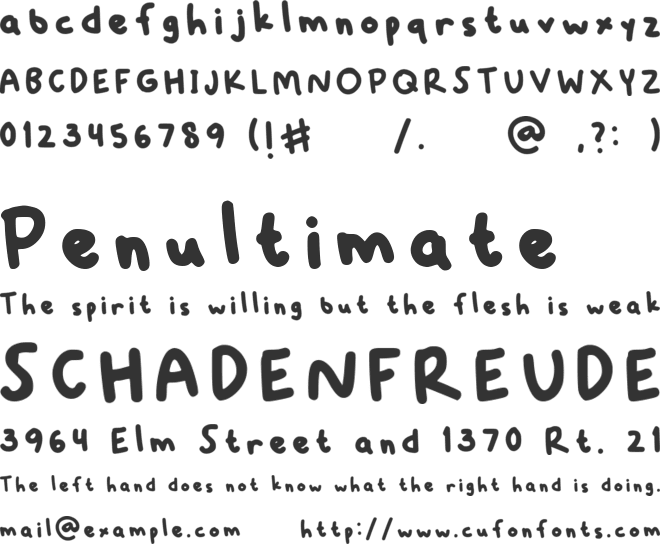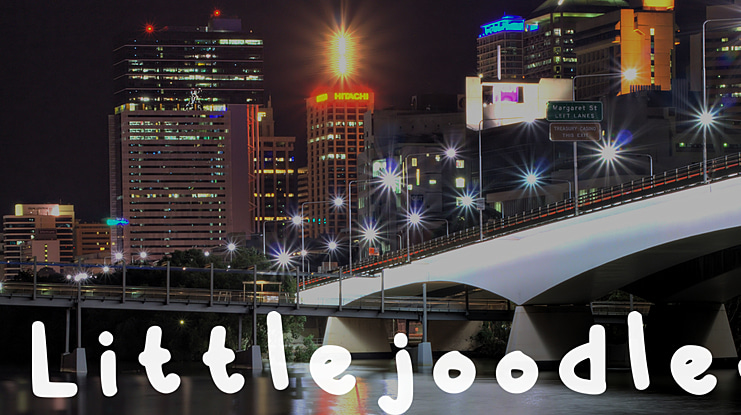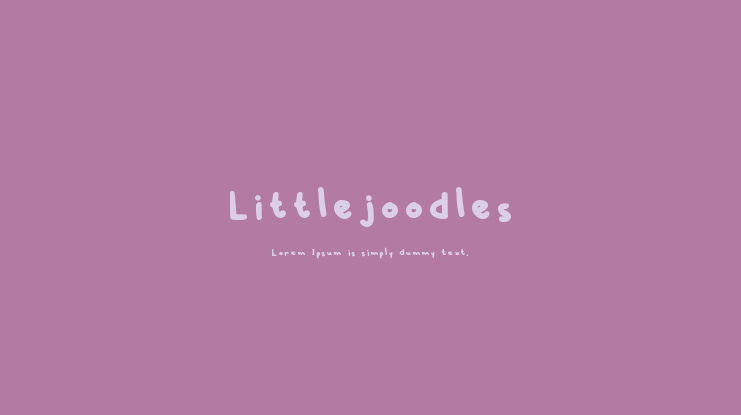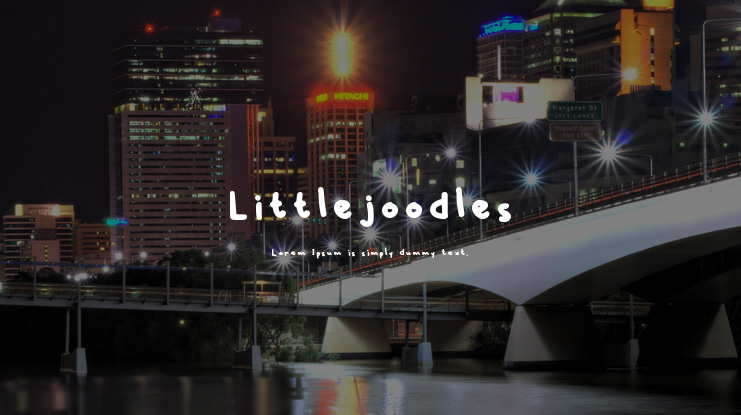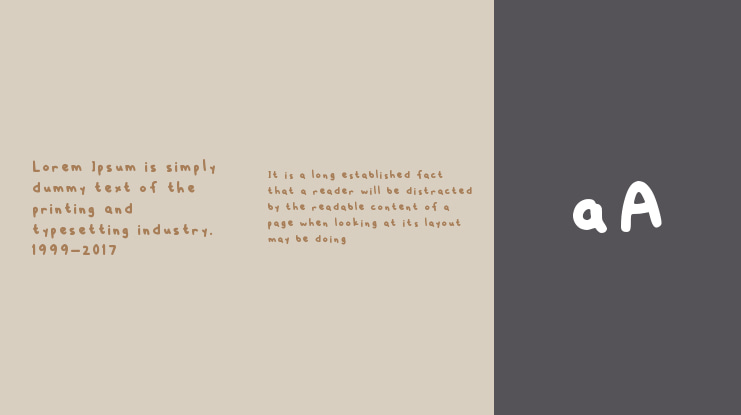
Littlejoodles Font
This font was made from my own handwriting! Feel free to use it for any purposes :) Check out my design/doodle account on Instagram @littlejoodles_ Have a nice day